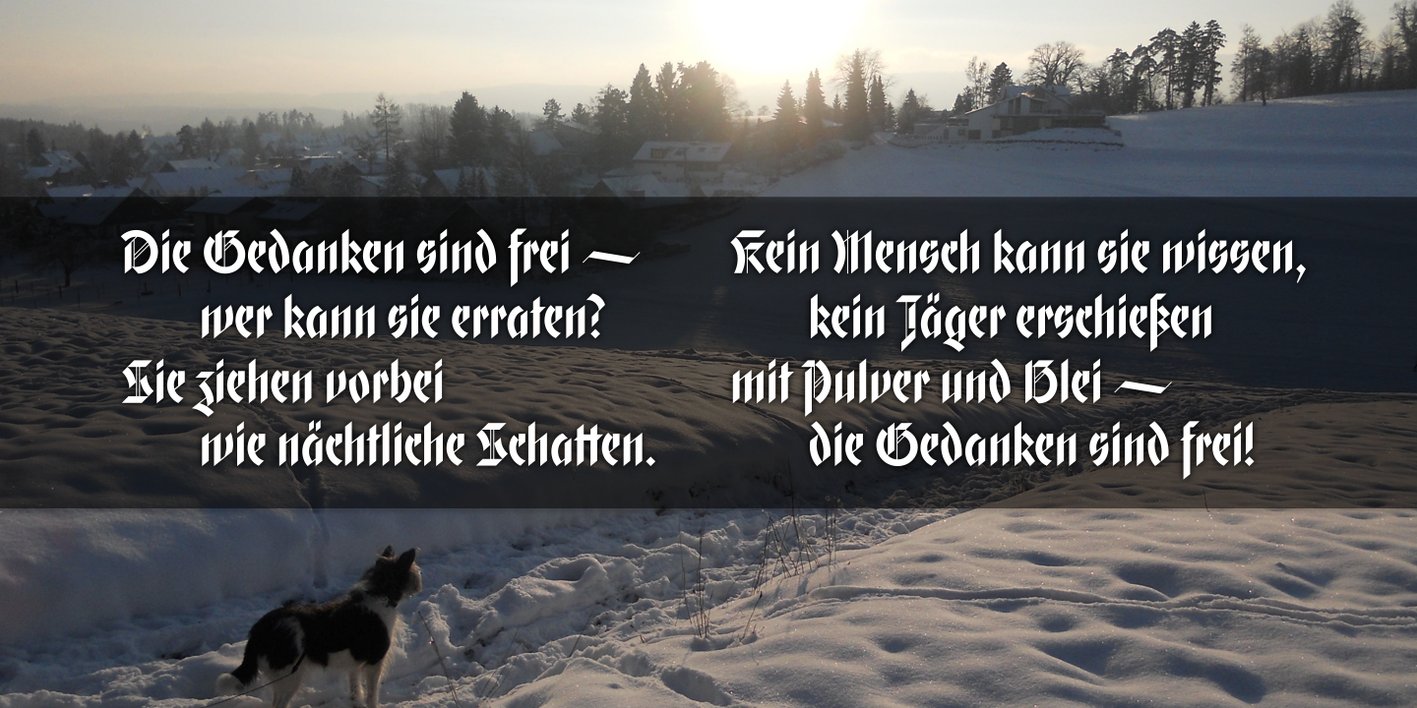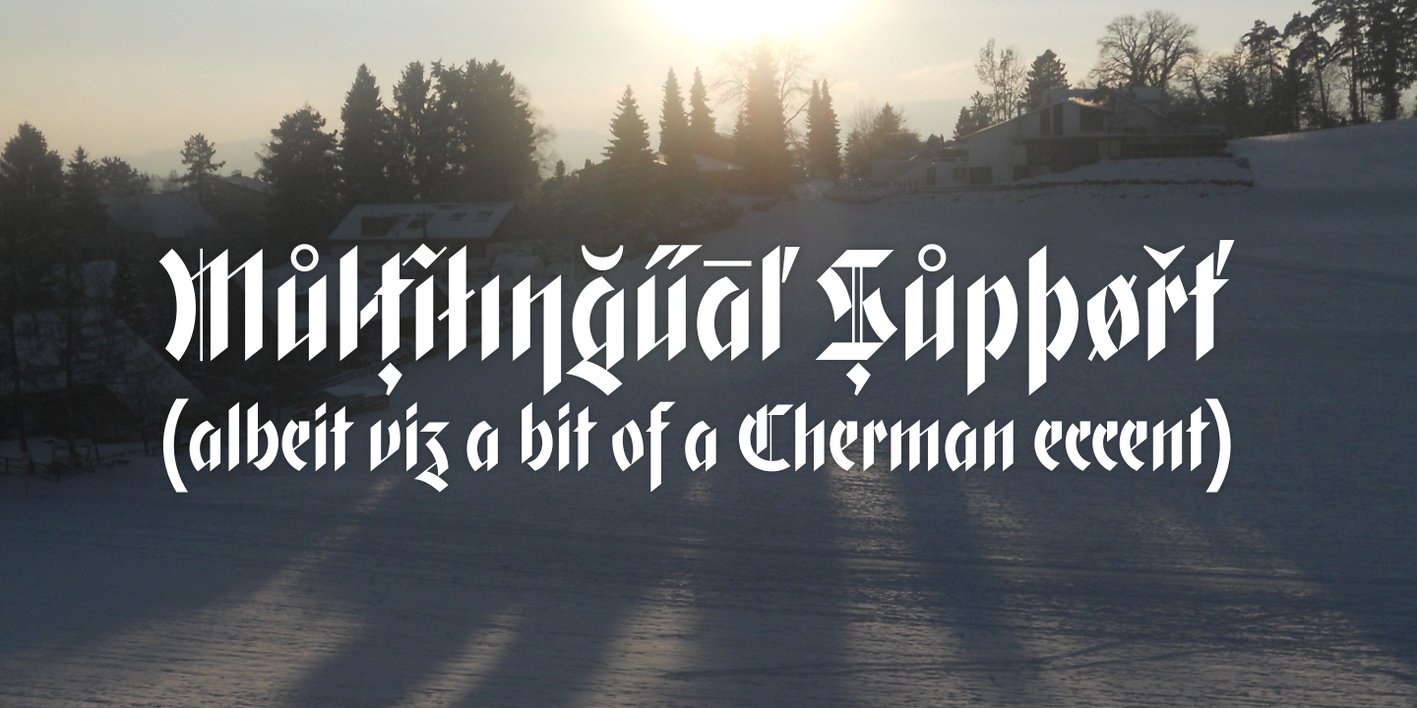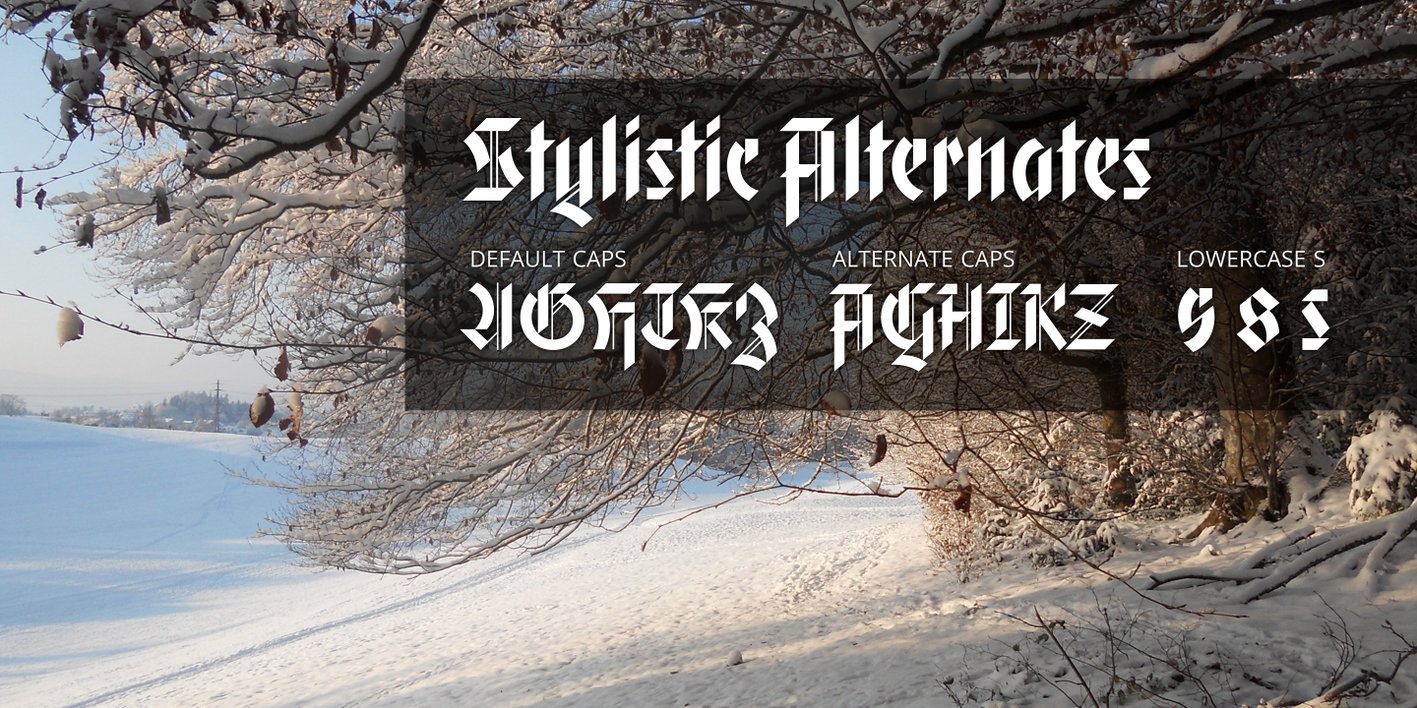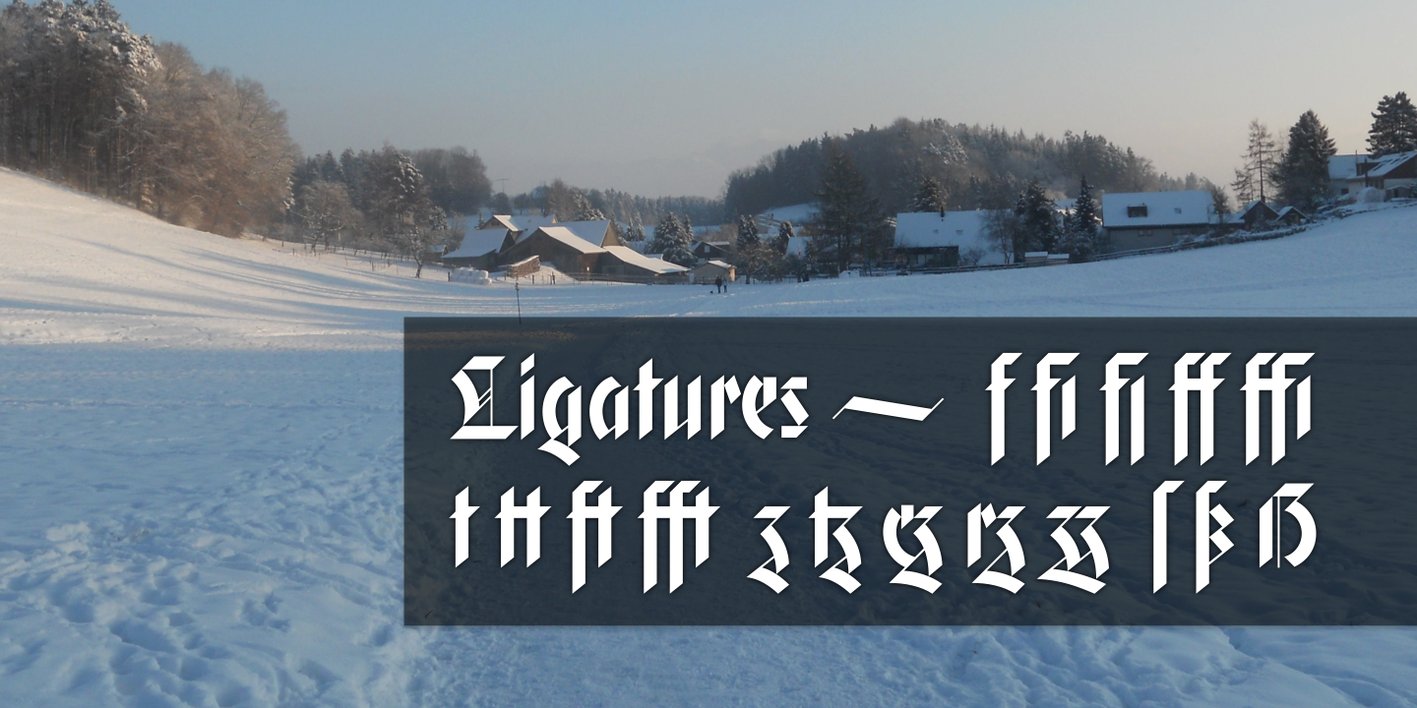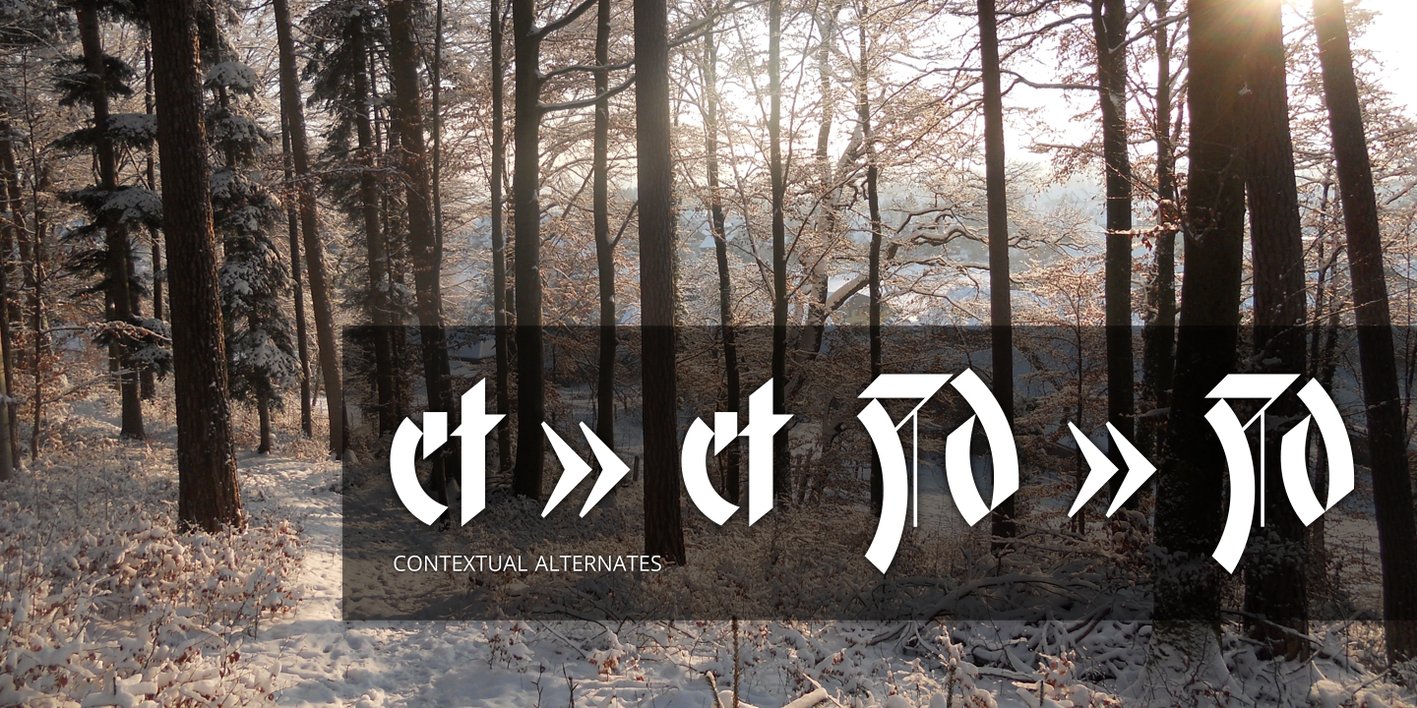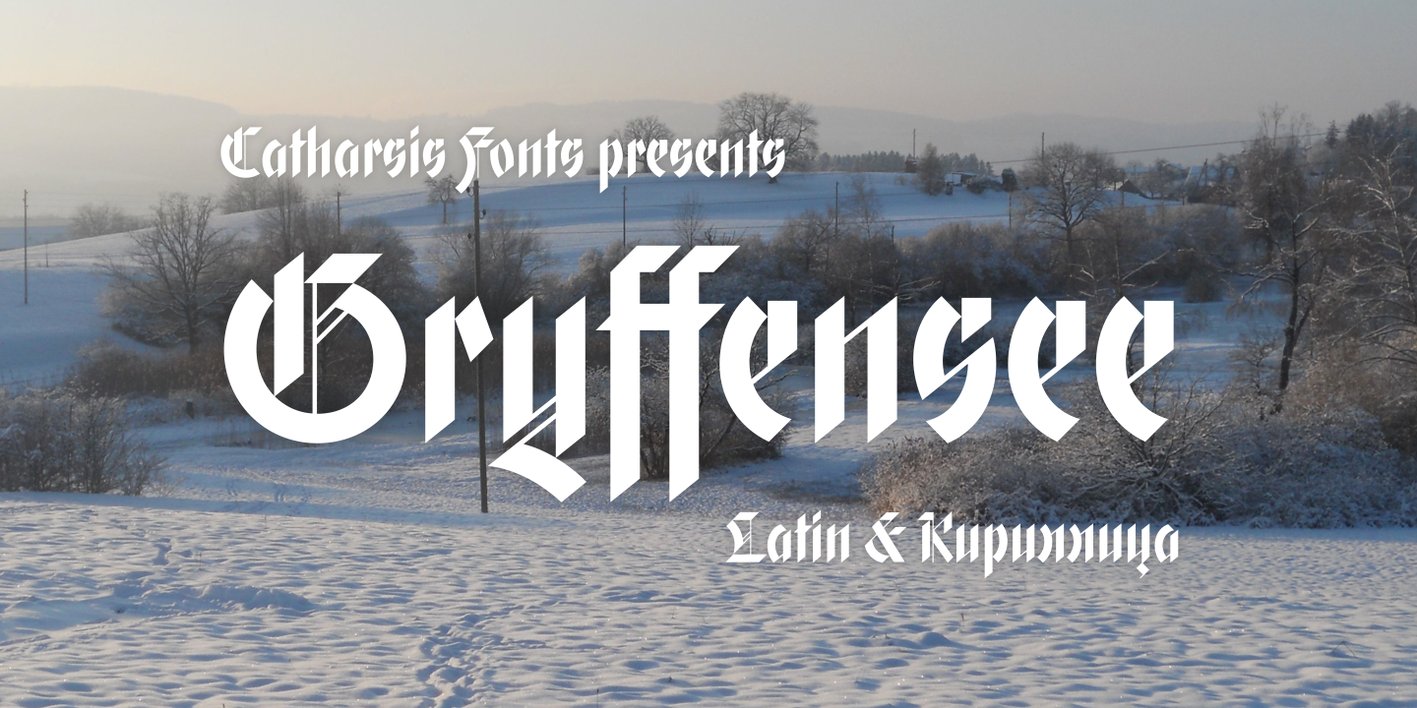
Gryffensee Font
Gryffensee Font excels in fantasy novel covers, magical potion labels, medieval tavern signage, mystical board game packaging, wizard academy branding, dragon-themed artwork, enchanted forest tourism, magical spell books, fantasy role-playing materials, and mythical creature illustrations. This captivating typeface brings ancient magic and legendary adventure to any fantasy-themed design project.
Gryffensee Font is exciting because it channels the mystical power and ancient wisdom of legendary creatures, featuring rugged letterforms that evoke the fierce nobility of griffins and the mysterious depths of enchanted lakes. Its magical character instantly transports viewers to realms of fantasy and wonder.
The Gryffensee Font family includes Regular, Bold, and Heavy weights with decorative alternates, mystical flourishes, ancient rune-inspired glyphs, and ornamental borders that enhance the magical aesthetic, providing designers with comprehensive tools for creating authentic fantasy typography that feels truly enchanted.
Fantasy designers love Gryffensee Font for its exceptional ability to evoke specific mythological themes and create immersive fictional environments through carefully crafted letterforms. The font's rugged character and mystical details create immediate associations with ancient magic, heroic quests, and the timeless appeal of fantasy storytelling that resonates across cultures and generations.
The design inspiration behind Gryffensee Font draws from medieval manuscripts, ancient stone carvings, and the rich visual traditions of European fantasy literature, making it particularly effective for projects requiring historical authenticity combined with magical wonder. Creative teams working on fantasy entertainment find this font essential for establishing credible fictional worlds.
Whether used for epic fantasy novels, magical gaming experiences, or mystical brand identities, Gryffensee Font delivers the perfect fusion of ancient authority and fantastical imagination. Its legendary appeal and mythical authenticity make it an indispensable choice for creators building worlds where magic, adventure, and ancient wisdom come alive through powerful typography.